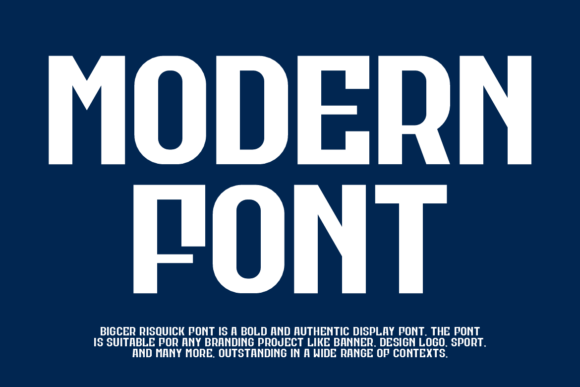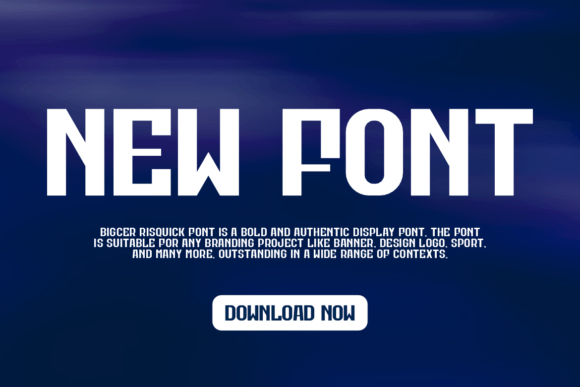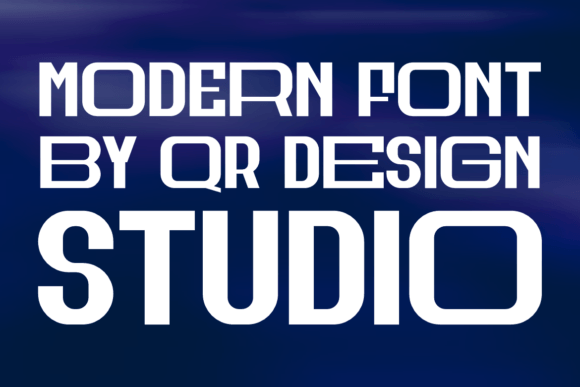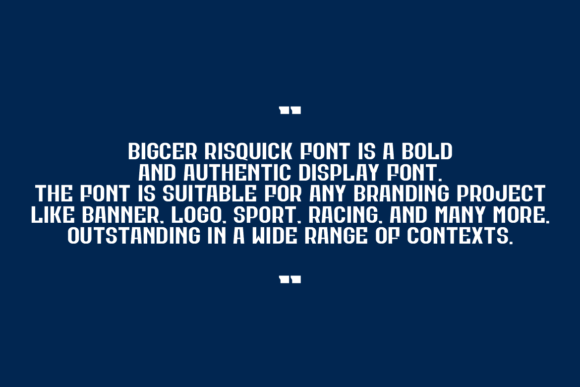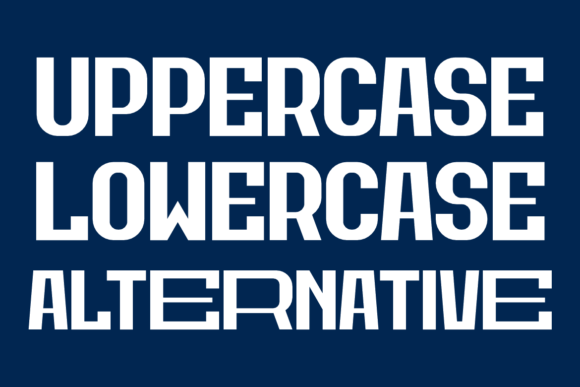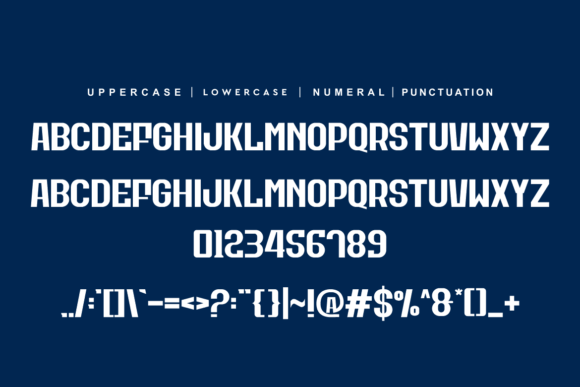
Introducing Bigcer Risquick: The Ultimate Sans Serif Font for Bold Statements
In the world of typography, a font can make or break a design. When it comes to making a statement, you need a font that exudes strength, stability, and sophistication. That’s where Bigcer Risquick comes in – a wide sans serif font that’s perfect for headlines, titles, and branding materials. In this article, we’ll dive into the features and benefits of Bigcer Risquick, and explore how it can elevate your design projects.
The Power of Sans Serif Fonts
Sans serif fonts have become a staple in modern design, and for good reason. They offer a clean, minimalist aesthetic that’s perfect for creating a professional and sleek look. Bigcer Risquick takes this concept to the next level with its bold, clean lines and generous spacing. The result is a font that commands attention without overwhelming the senses.
Key Features of Bigcer Risquick
- Bold and Impactful: Bigcer Risquick is designed to make a statement. Its bold lines and generous spacing create a font that’s both commanding and easy to read.
- Clean and Modern: The simple yet impactful design of Bigcer Risquick makes it perfect for modern designs. Its clean lines and minimal ornamentation create a sleek and sophisticated look.
- Versatile: Bigcer Risquick is suitable for a range of applications, from posters and flyers to website design and branding materials.
- Easy to Read: Despite its bold presence, Bigcer Risquick remains easy to read, even at smaller sizes.
Applications of Bigcer Risquick
So, where can you use Bigcer Risquick? The answer is almost anywhere. Here are some ideas to get you started:
- Posters and Flyers: Bigcer Risquick is perfect for creating eye-catching posters and flyers that demand attention.
- Website Design: Use Bigcer Risquick as a headline font to add a touch of sophistication and professionalism to your website.
- Branding Materials: Bigcer Risquick is ideal for creating logos, business cards, and other branding materials that require a bold and impactful font.
- Social Media Graphics: Use Bigcer Risquick to create social media graphics that stand out from the crowd.
Why Designers and Crafters Love Bigcer Risquick
Bigcer Risquick has quickly become a favorite among designers and crafters, and for good reason. Here are just a few reasons why:
- High-Quality Design: Bigcer Risquick is designed to the highest standards, ensuring a professional and polished look.
- Versatile: Bigcer Risquick can be used for a wide range of projects, from personal crafts to commercial designs.
Tips for Using Bigcer Risquick
To get the most out of Bigcer Risquick, here are a few tips to keep in mind:
- Use it Boldly: Bigcer Risquick is designed to make a statement, so don’t be afraid to use it boldly.
- Experiment with Colors: Bigcer Risquick looks great in a range of colors, so experiment to find the perfect combination for your design.
- Pair it with Other Fonts: Bigcer Risquick pairs well with a range of other fonts, so don’t be afraid to get creative.